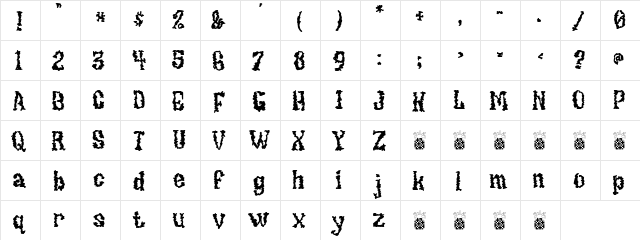
UndieCrust Regular
Design Context for UndieCrust Typeface
UndieCrust is a composed and adaptable typeface that performs quietly and consistently across a wide range of design contexts.